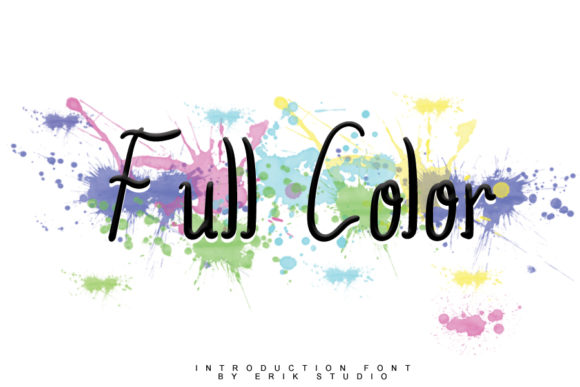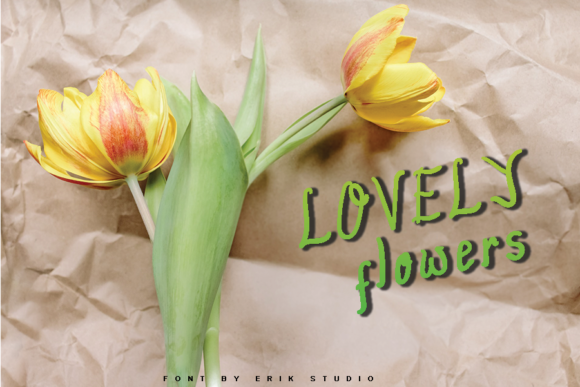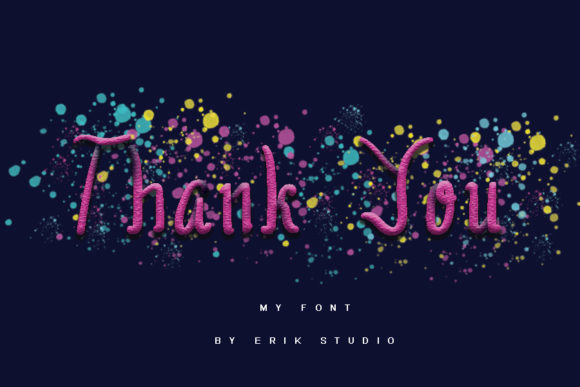
Introduction to First Sight Font
Make your designs stand out with First Sight, a stylish and unique display font.
It will look stunning on posters, thank you cards, quotes, greeting cards, logos, business cards and every other design which needs a creative touch .
Key Features of First Sight Font
Why Choose First Sight Font?
First Sight Font offers exceptional quality and versatility, making it a valuable addition to your design toolkit. Whether you’re creating for personal projects or commercial use, First Sight Font delivers professional results.